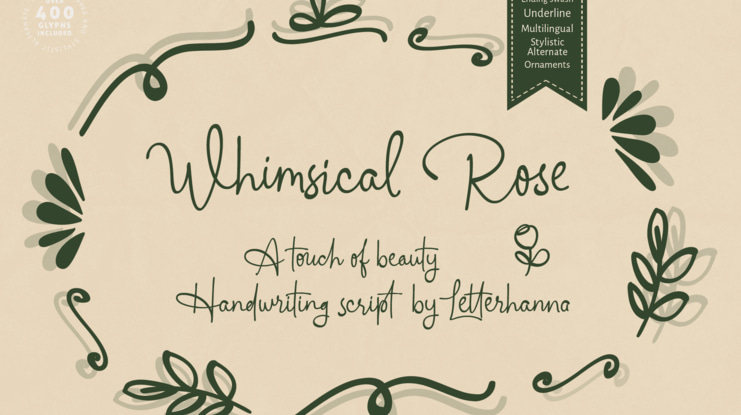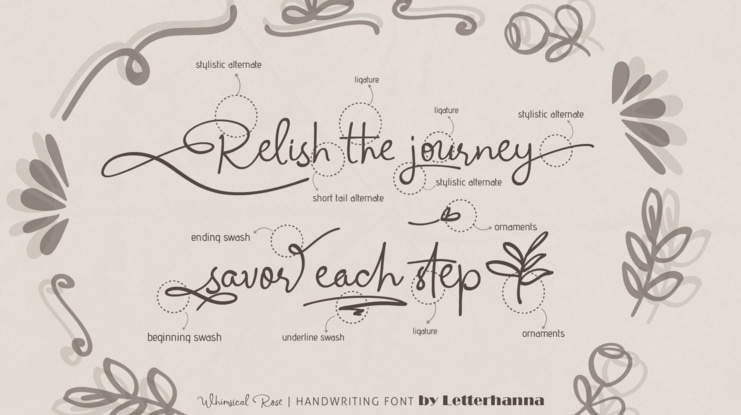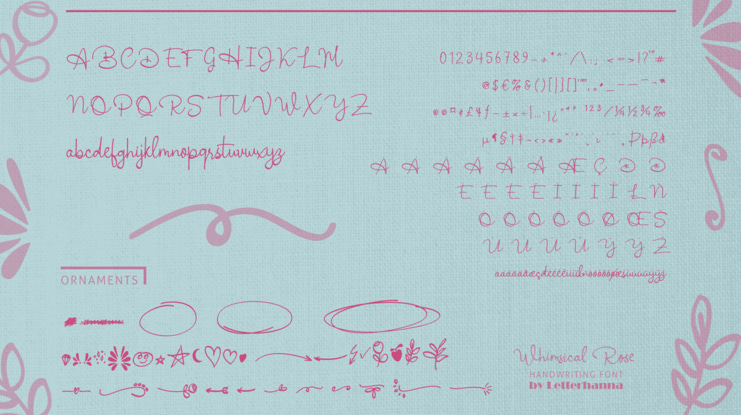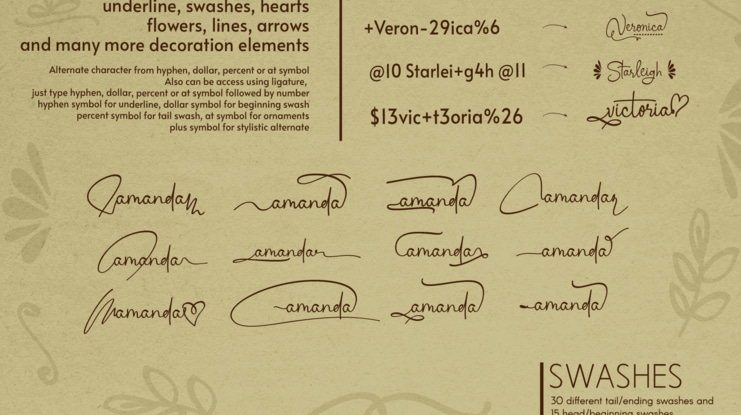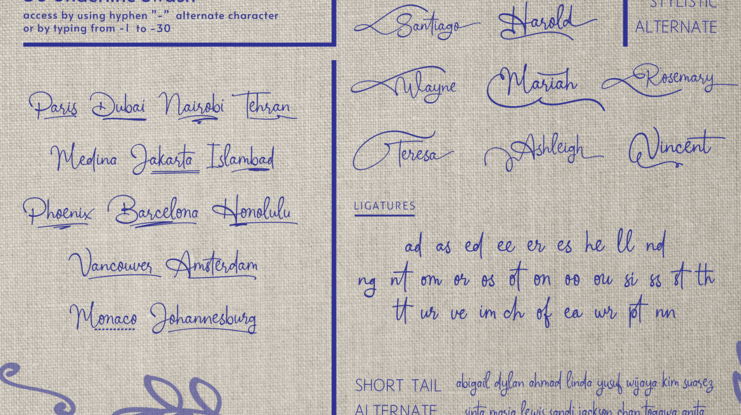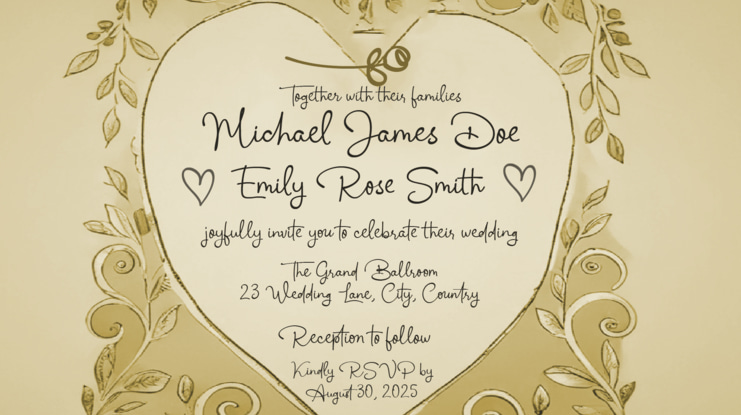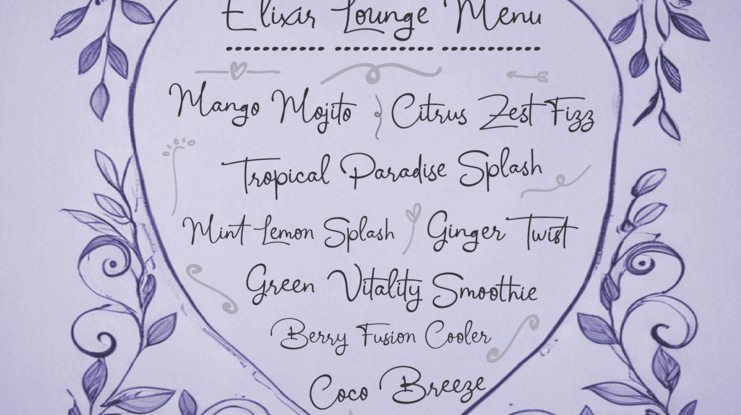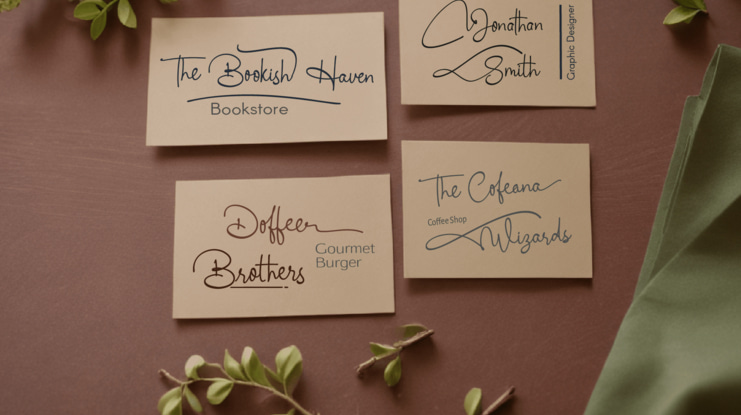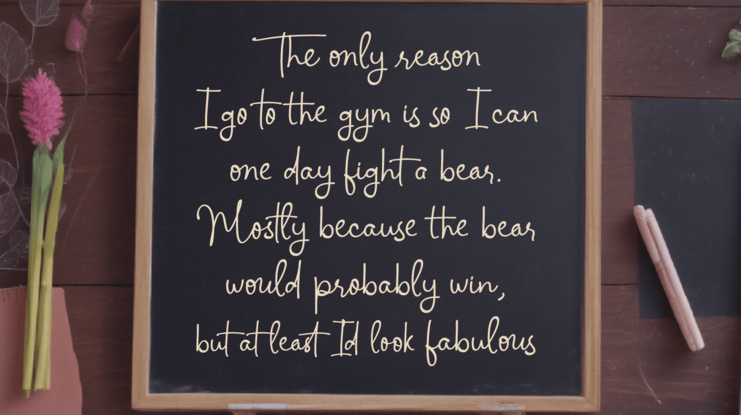
Whimsical Rosefree Font
Introducing Whimsical Rose – a charming, flowery script font that dances with elegance and creativity. With its whimsical strokes and delicate curves, this handwriting font brings a touch of romance and artistry to every design. Perfect for branding, invitations, and heartfelt creations, Whimsical Rose adds a graceful flourish to your words. Let your creativity bloom!
Whimsical Rose